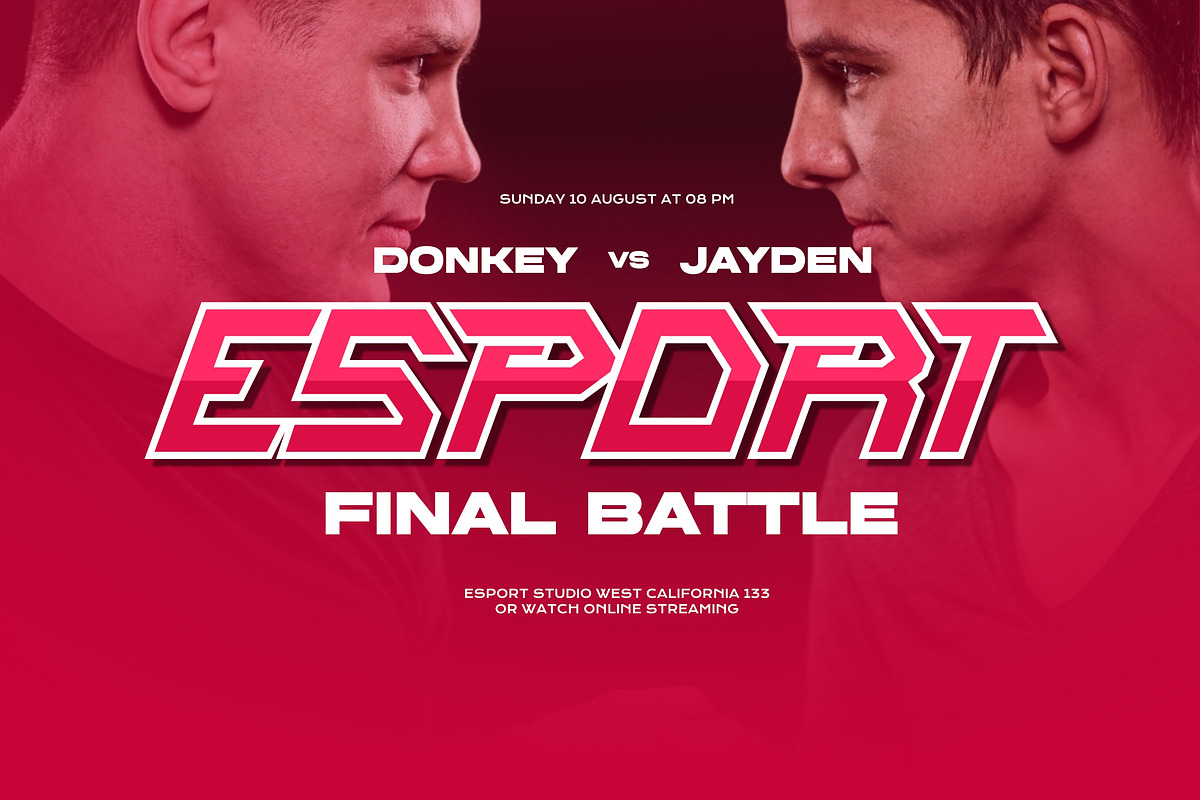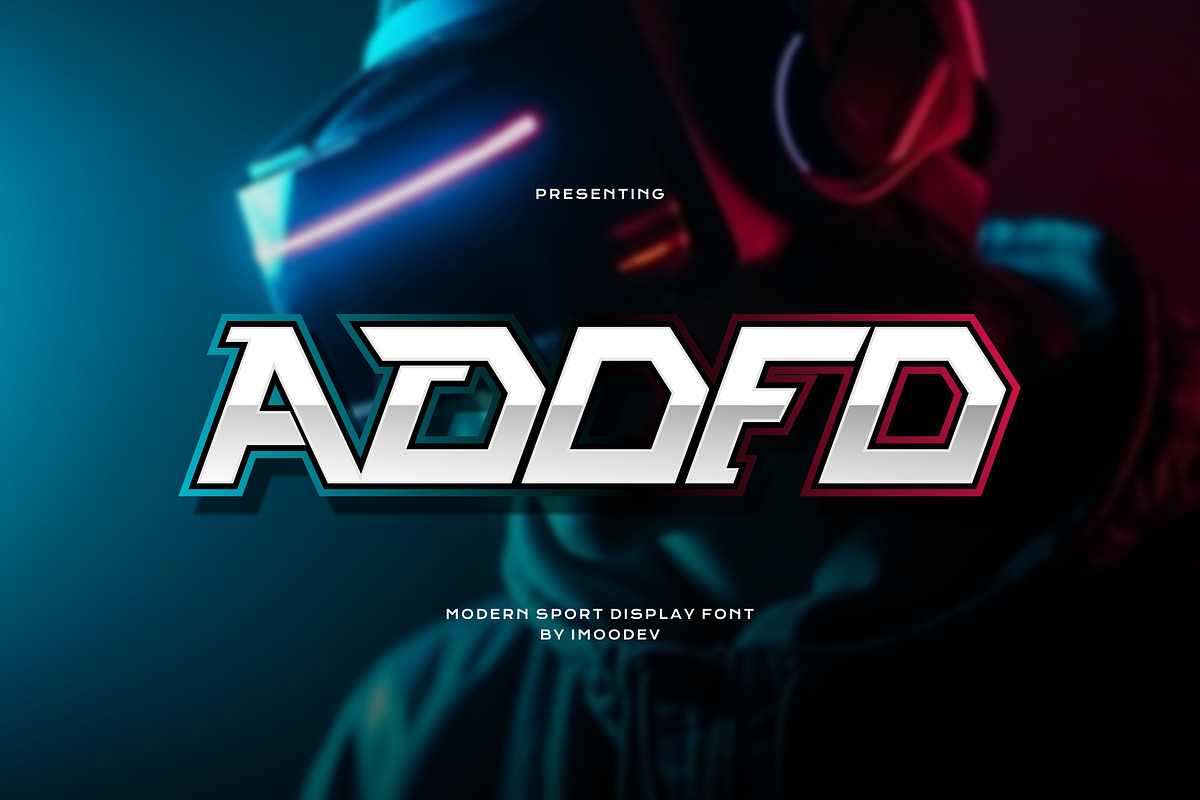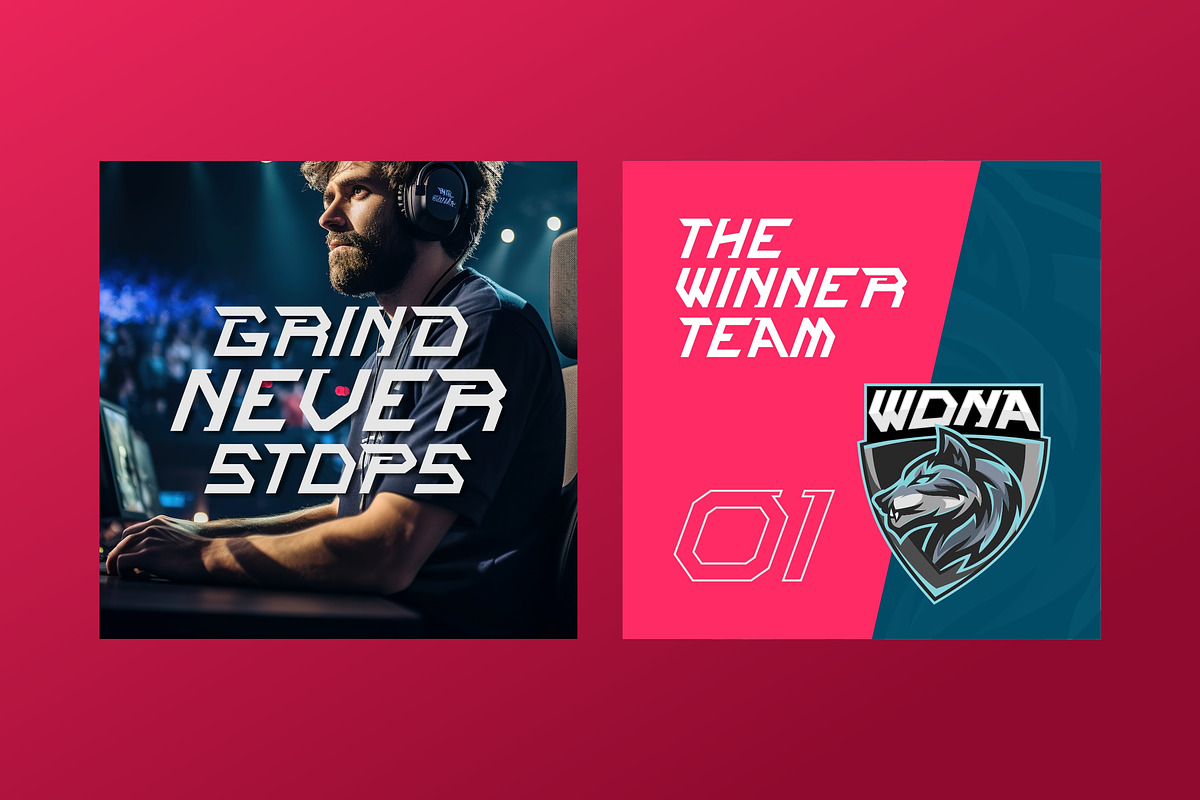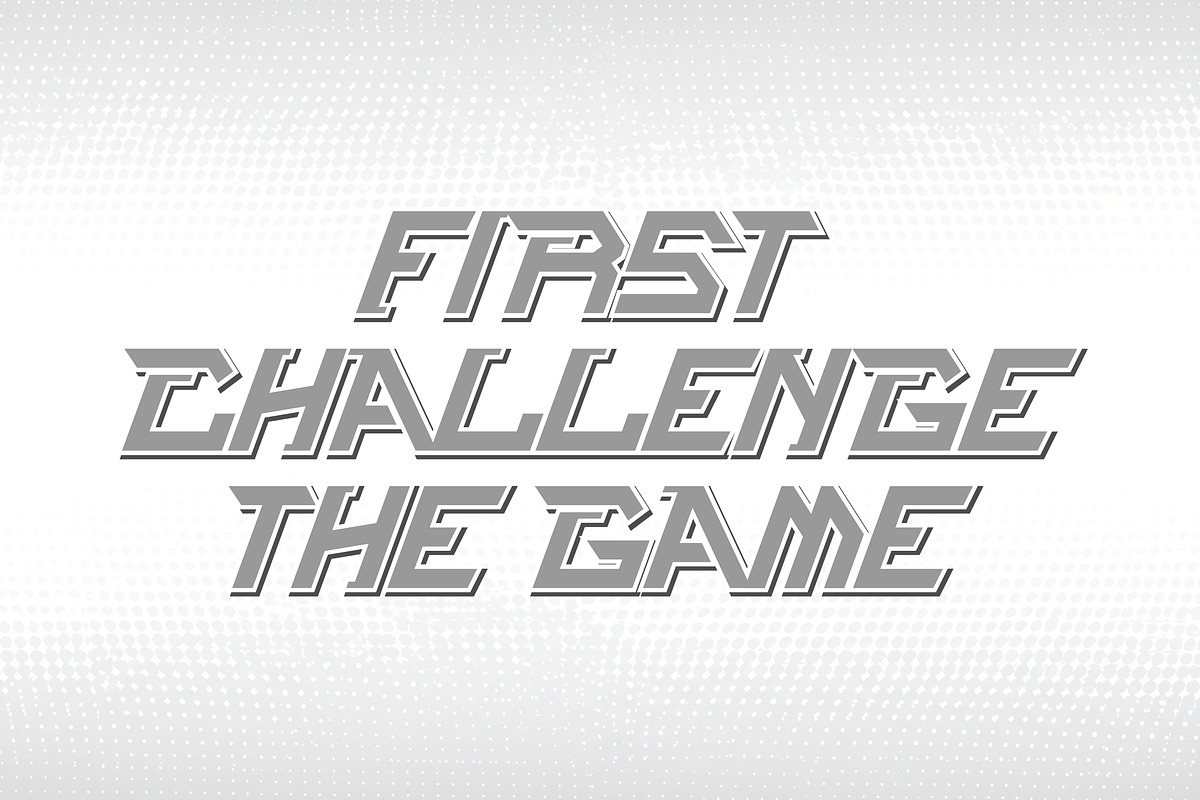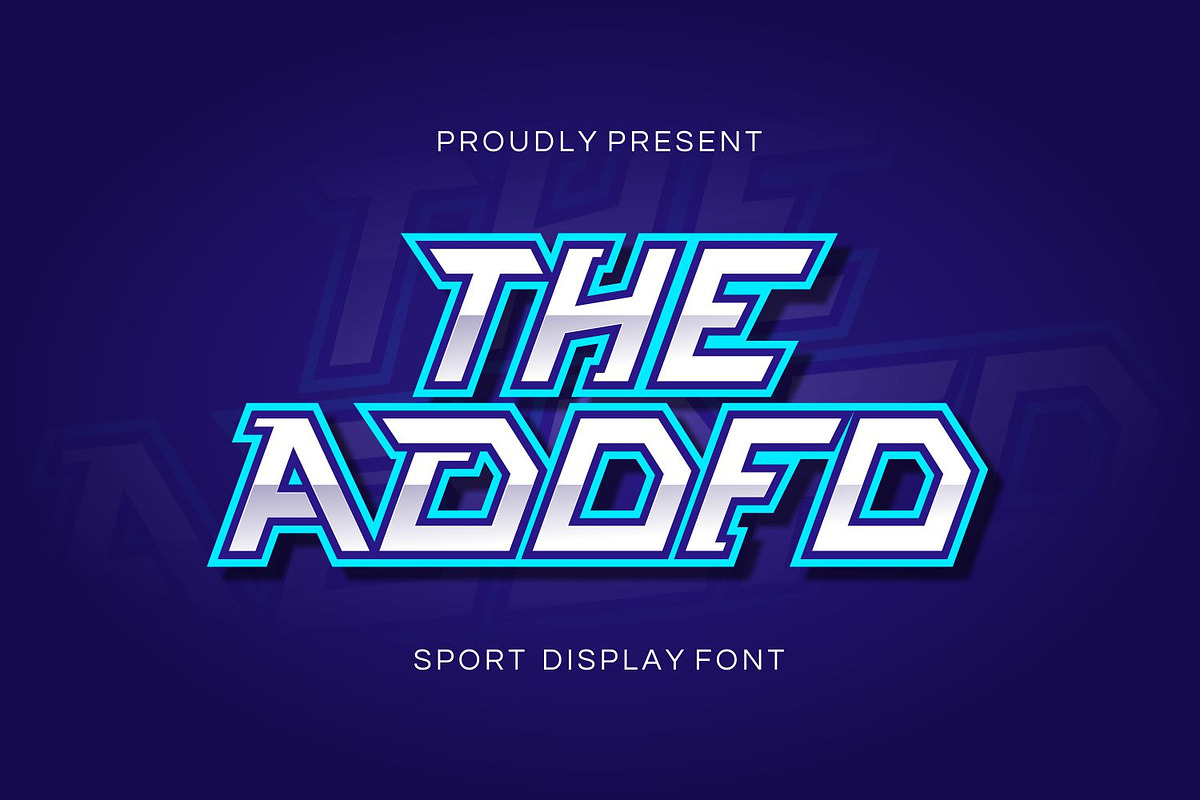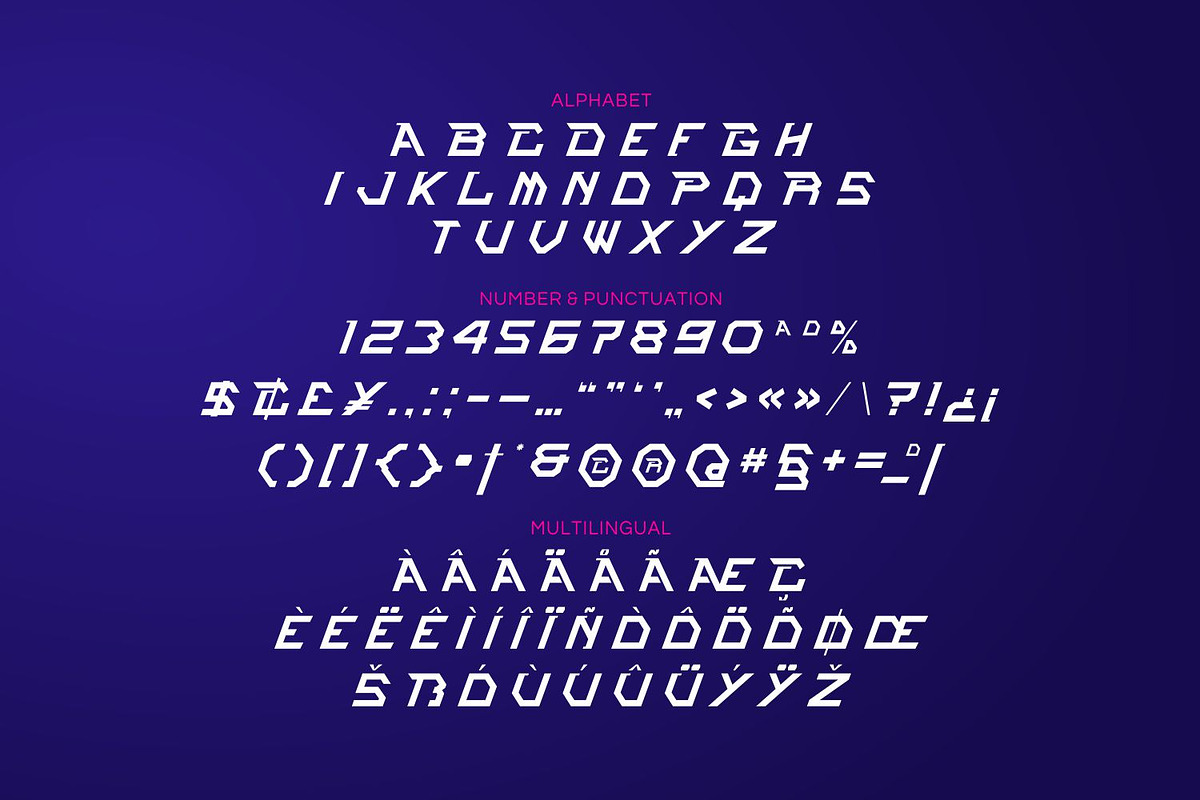
Adofo - Sports Diplay Font
Adofo is a modern sports diplay font with letters style is slanted forward, giving it a sense of constant motion and aggression like it’s racing ahead.
The sharp corners, broken line segments, and thick strokes scream tech, cyberpunk, mech, gaming, e-sports, and futuristic branding.
Suitable for film like it battle robots, space tournaments, racing games, sports titles, running matches, cycling, automotive game logos, poster, jersey design, sport-slogan, any writing which needs a strong-bold vibe, and any type of advertising purpose.